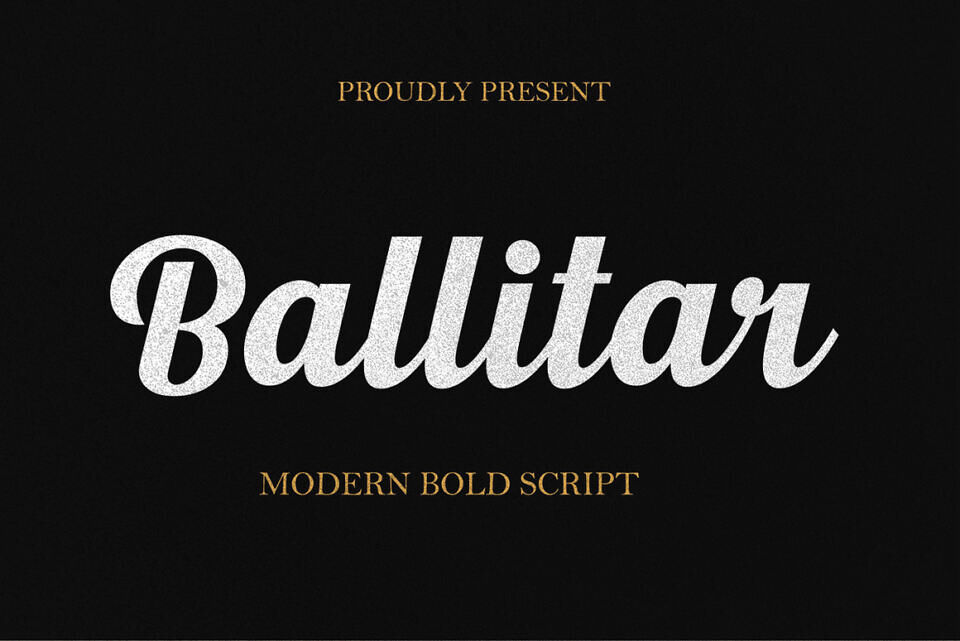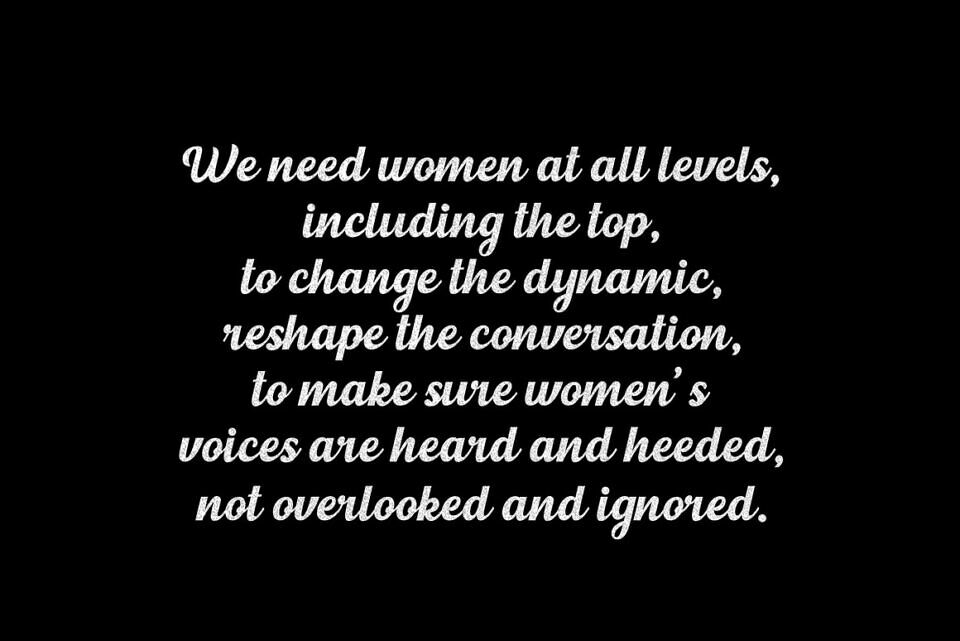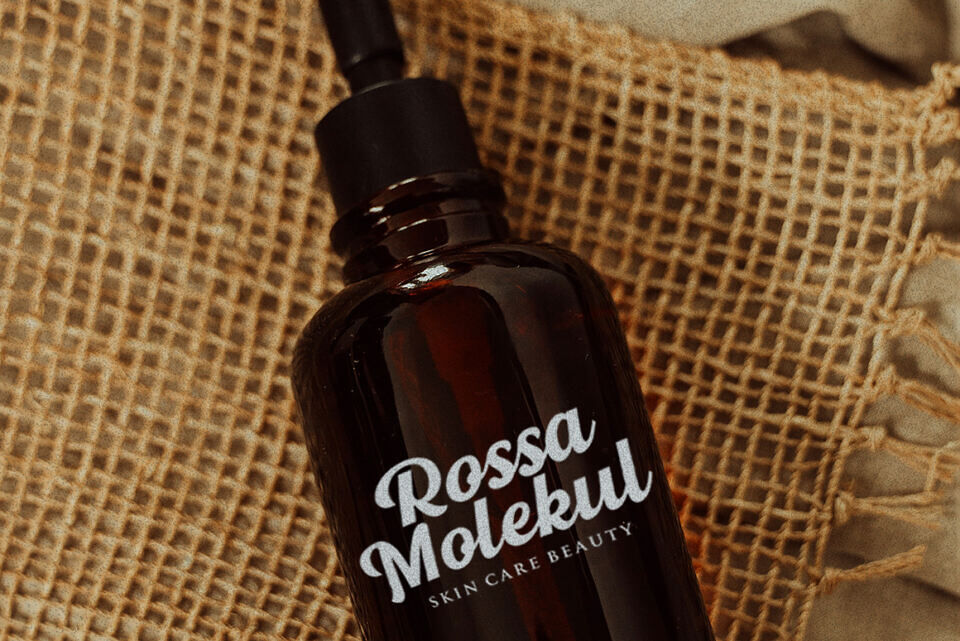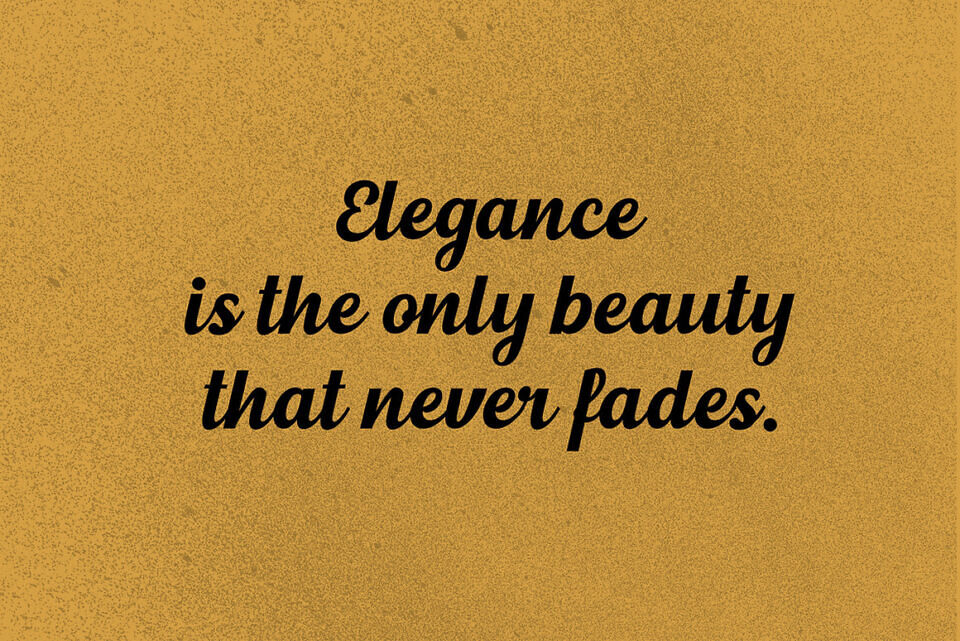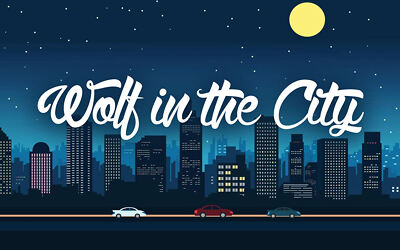
Ballitar City Font
Unleash the boldness of contemporary design with our exceptional modern bold script font, now available for sale. This font boasts a perfect fusion of clean lines and daring strokes, creating an eye-catching and confident look for your creative projects.
Crafted with precision and attention to detail, our modern bold script font exudes charisma and versatility. Its boldness ensures maximum impact, while its flowing curves and sharp edges add a touch of elegance to every character. Whether for logos, branding materials, posters, or social media graphics, this font is bound to make a striking statement.